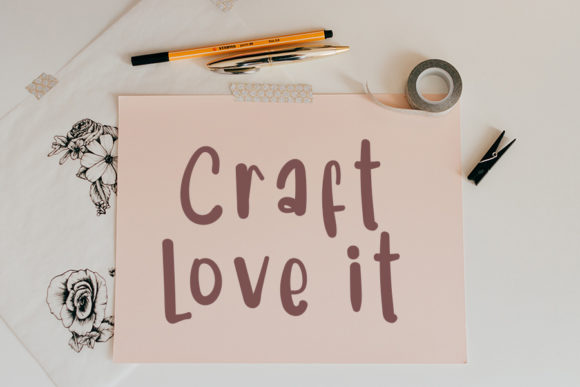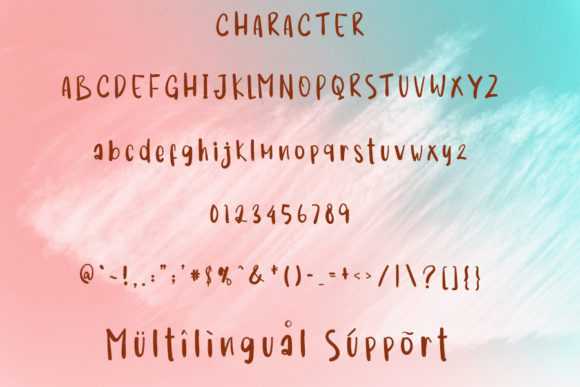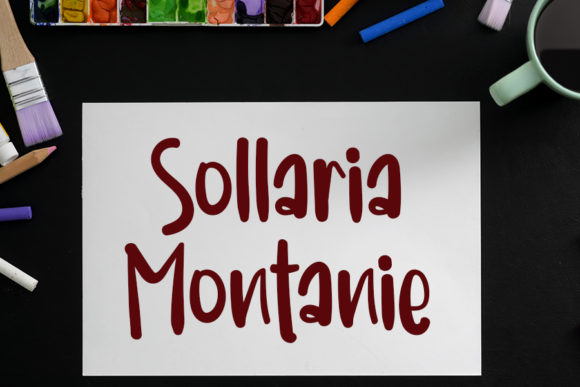
Introduction to Snack Peanut Font
Do you ever find yourself stuck in a creative rut, scrolling through design inspiration boards, and suddenly, a font catches your eye? It’s that perfect blend of quirky charm and elegant simplicity that makes your heart skip a beat. For me, that moment happened when I stumbled upon the Snack Peanut Font. This delightful handwritten font is more than just a pretty face – it’s a design resource that can elevate your creative projects to the next level.
Whether you’re a seasoned designer or a DIY enthusiast, the Snack Peanut Font is an invaluable addition to your toolkit. Its high-quality design and transparent background make it perfect for social media graphics, calligraphy scripts, and even digital art. And the best part? It’s available for free download, making it an accessible design resource for creatives of all levels.
With its friendly, neat, and readable aesthetic, the Snack Peanut Font is sure to become your go-to choice for any creative project. So why not give it a try and see how it can transform your designs?
Key Features of Snack Peanut Font
- High-quality design resource suitable for creative projects, offering a unique and playful touch.
- Includes a single font style, perfect for adding a consistent and recognizable visual identity to your creative project.
- Designed with a modern aesthetic, making it an ideal choice for contemporary design projects.
Honest Review: Snack Peanut Font
As a designer, I’ve had the pleasure of working with various design resources, but the Snack Peanut Font has caught my attention lately. In this review, I’ll share my thoughts on this quirky and fun font.
- ✨ Unique and playful style that adds a creative touch to any project
- ✨ High-quality glyphs that ensure readability and consistency
- ✨ Transparent background makes it easy to use in various design applications
- ⚠️ Limited font sizes available, which may not be suitable for all design projects
- ⚠️ May not be suitable for formal or professional designs due to its playful nature
Overall, I’m impressed with the Snack Peanut Font’s creative potential and design quality. While it may have some limitations, it’s an excellent choice for designers working on fun and casual projects. The free download option and transparent background make it a valuable design resource. If you’re looking for a font that adds a playful touch to your creative project, the Snack Peanut Font is definitely worth considering.
The Snack Peanut Font is ideal for use in creative projects, such as branding, marketing materials, and social media graphics. Its unique design and high-quality texture make it perfect for adding a personal touch to your designs.